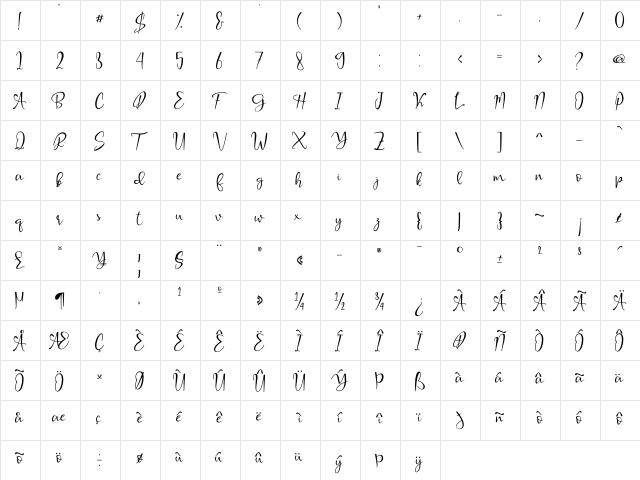
Anjellie Regular
| Designer | Arief Tri Sulistiyono |
Design Context for Anjellie Typeface
Anjellie is a composed and adaptable typeface that performs quietly and consistently across a wide range of design contexts.